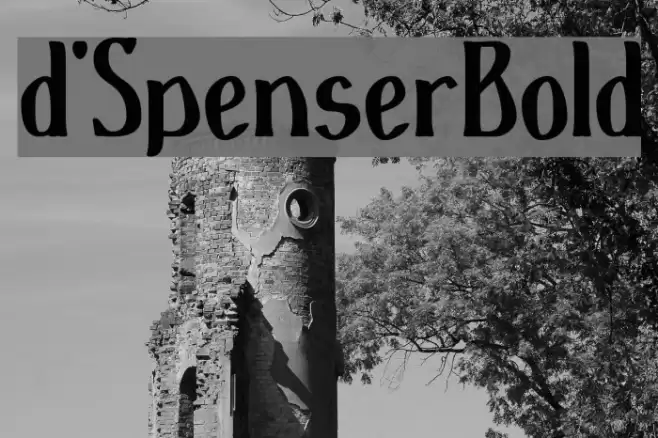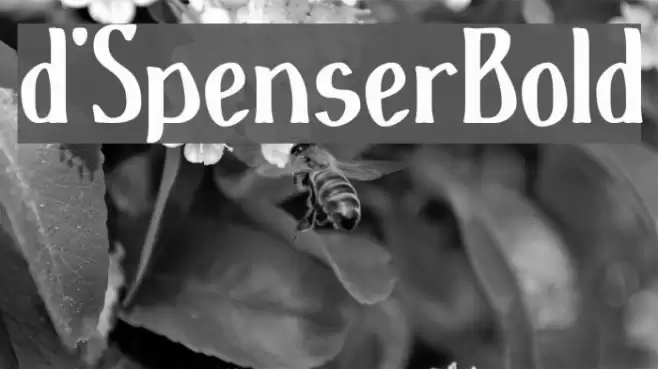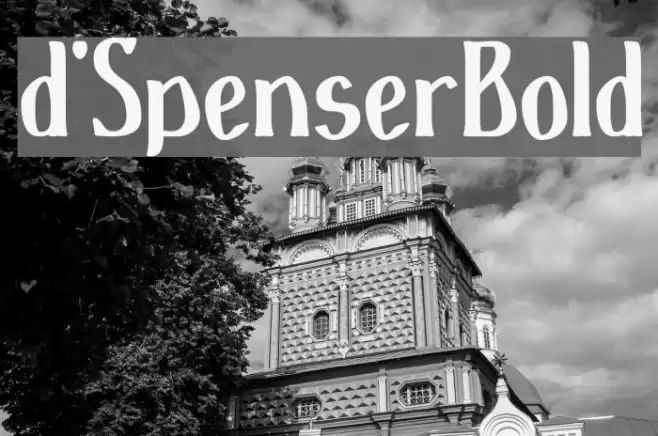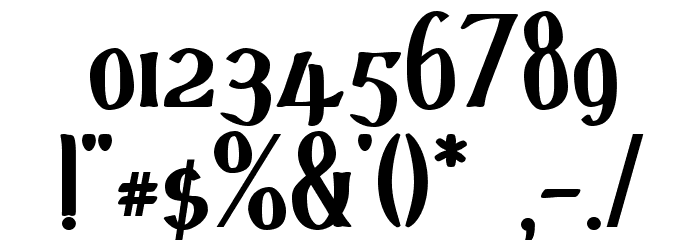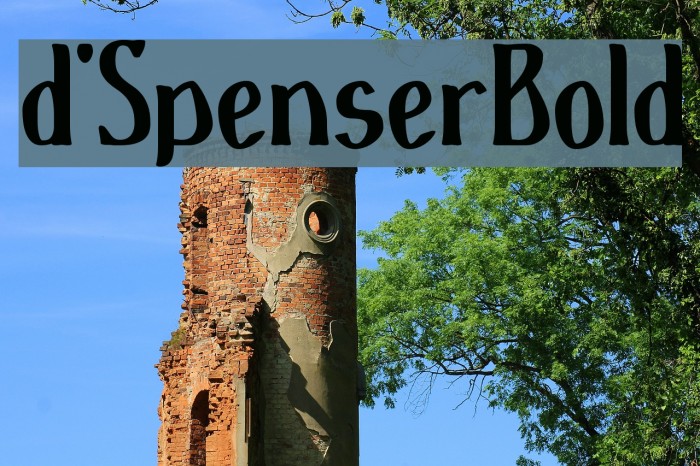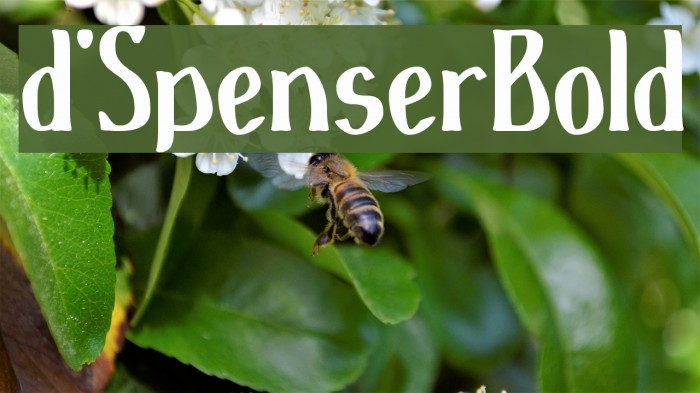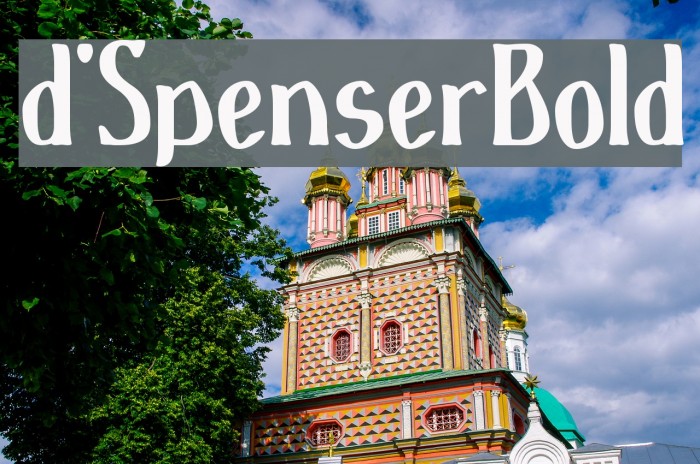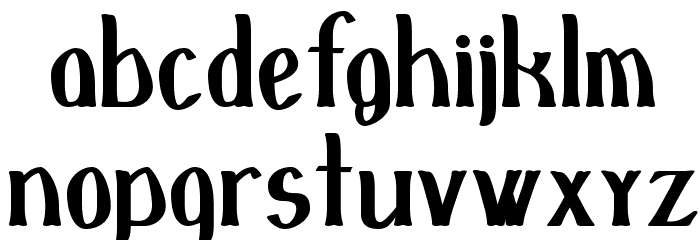
d'SpenserBold Font
d'SpenserBold Description
This font features a bold and dynamic style with a playful yet sophisticated appearance. The uppercase letters are tall and slightly condensed, with unique curves and angles that give them a distinctive personality. The lowercase letters maintain a consistent style, offering a harmonious blend with the uppercase set. Numbers are bold and clear, ensuring readability. Special characters are designed with the same attention to detail, making them stand out while remaining cohesive with the overall font design. The strokes are thick, providing a strong visual impact, and the slight variations in line thickness add an artistic flair. This font is perfect for projects that require a bold statement and a touch of creativity.
A bold, dynamic font with unique curves and artistic flair from Script fonts.
- Proposed Projects: Ideal for branding, posters, headlines, and creative design projects.